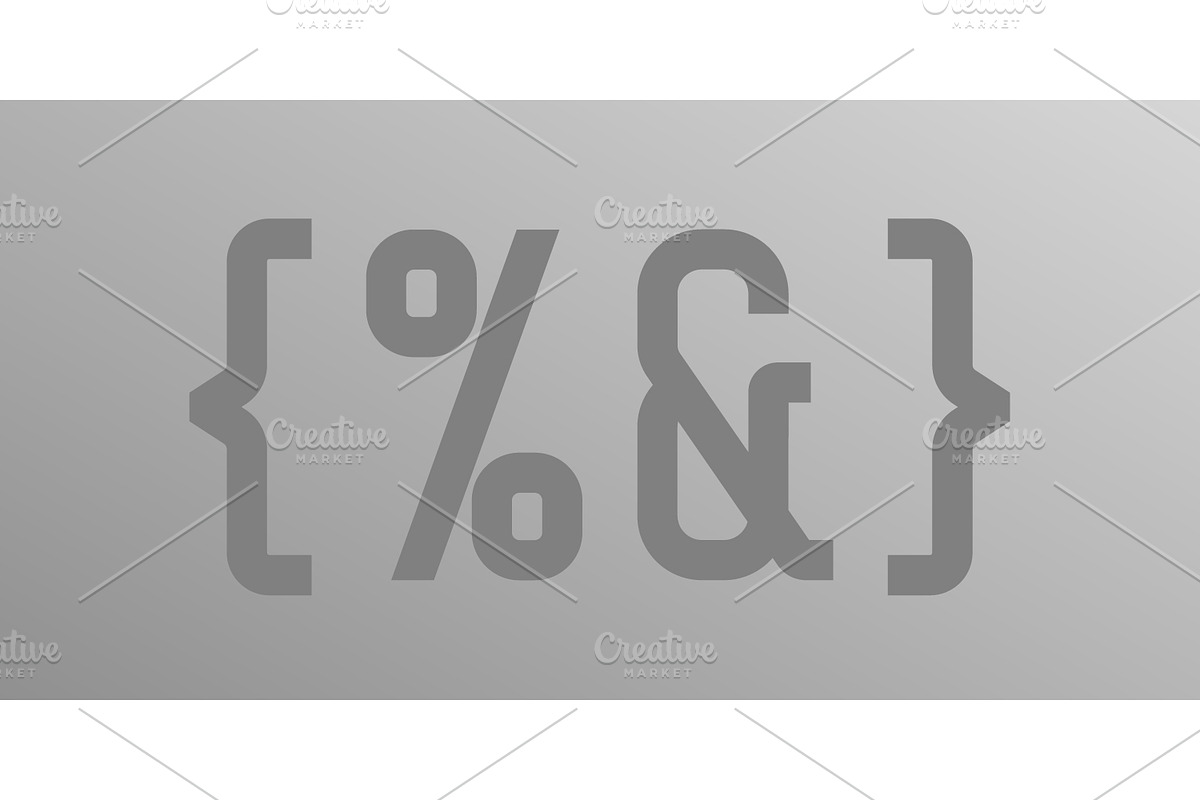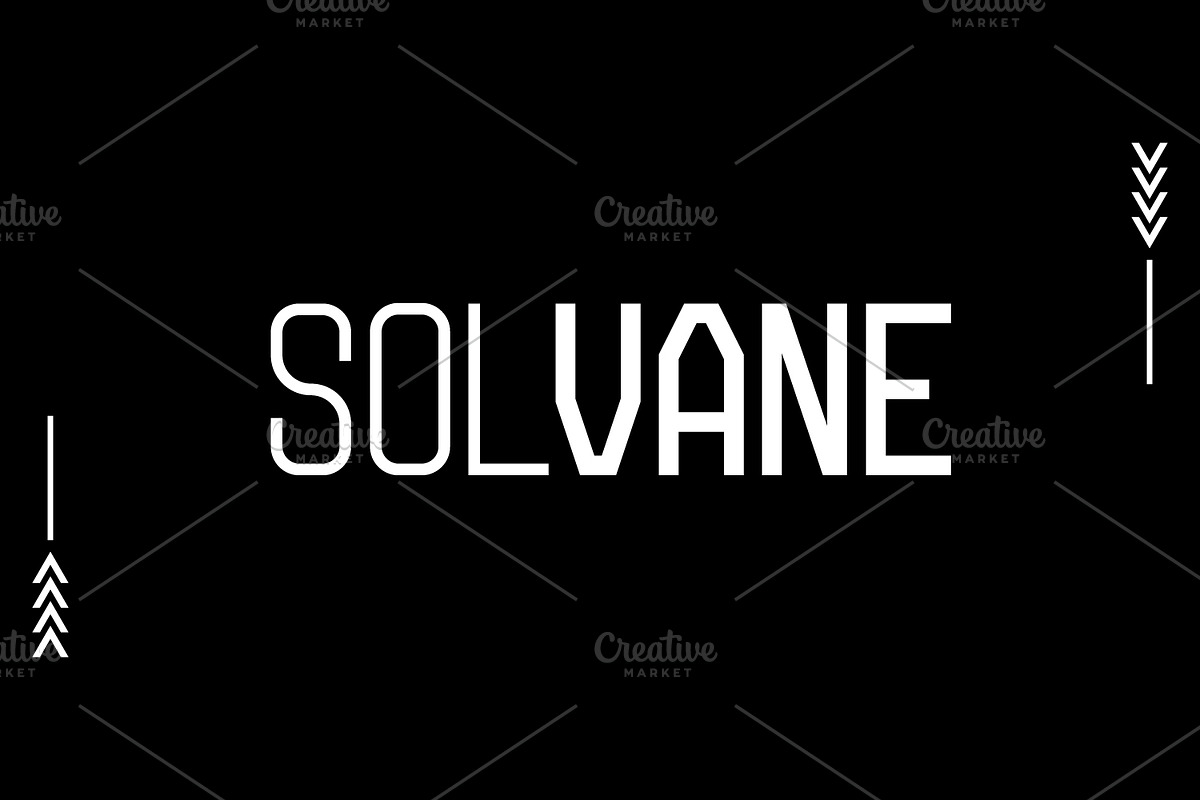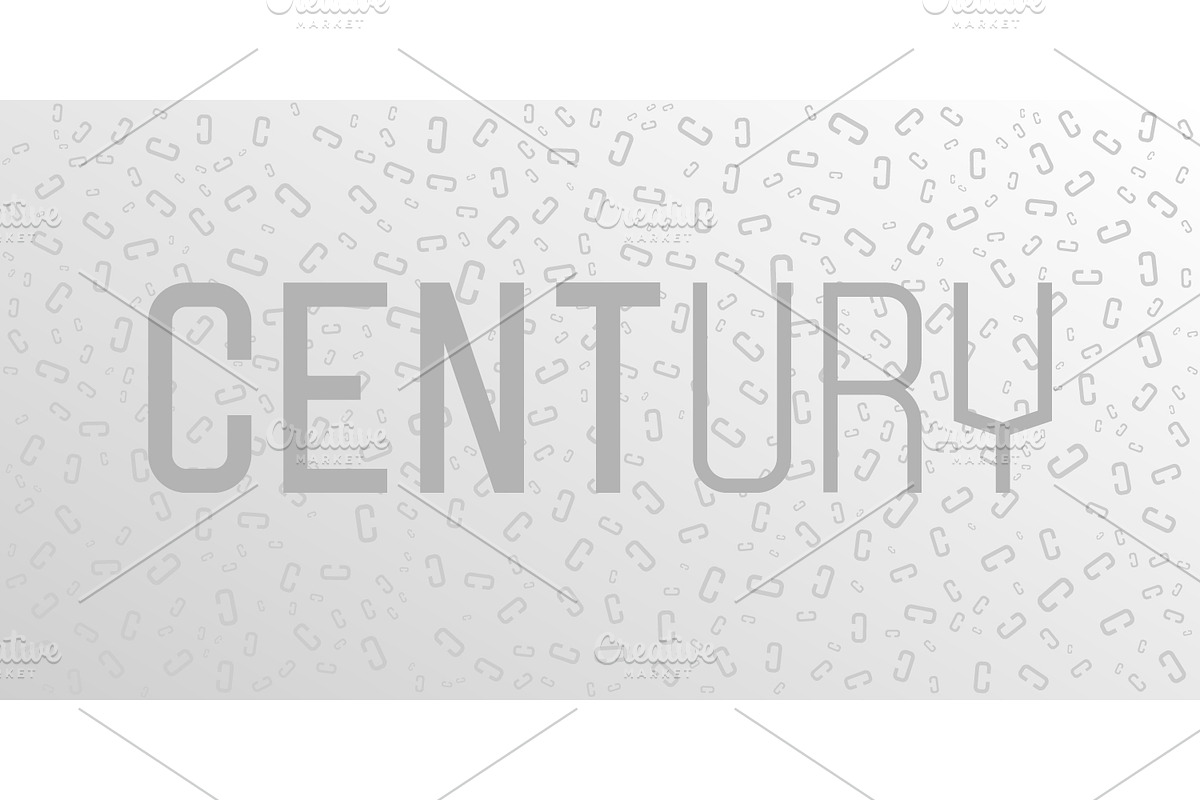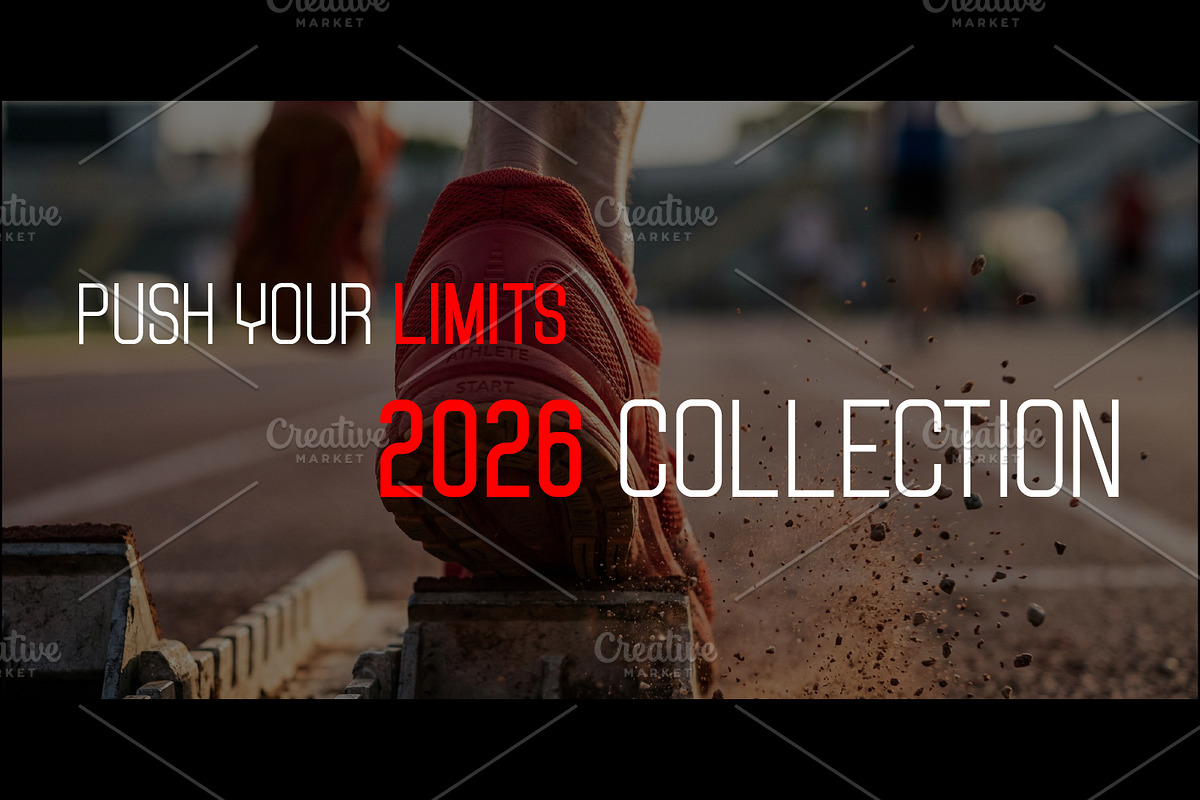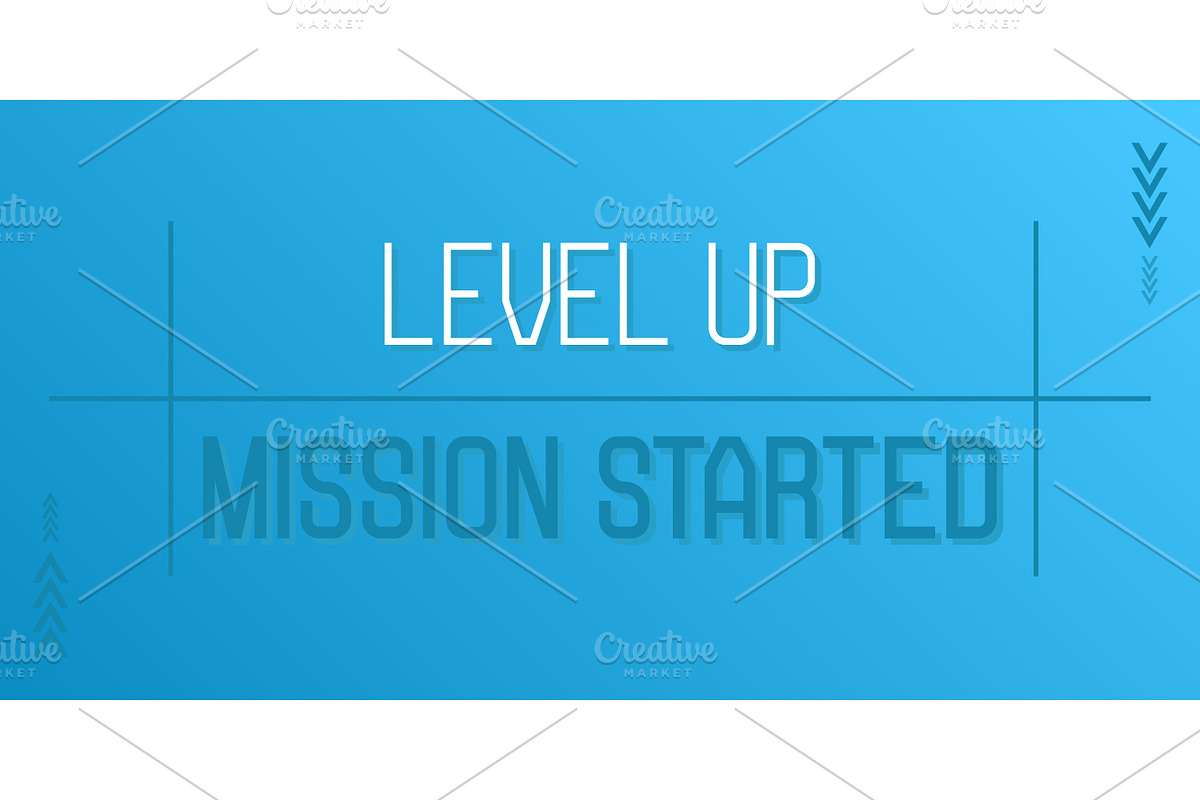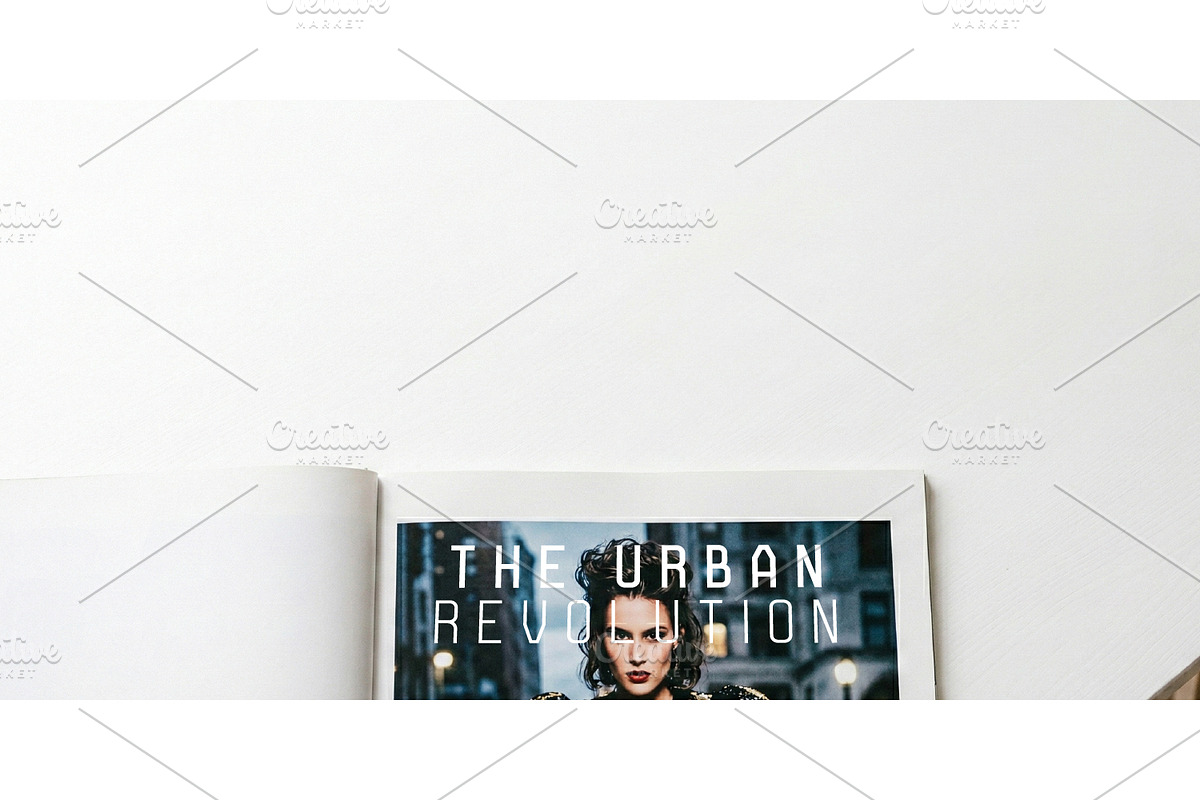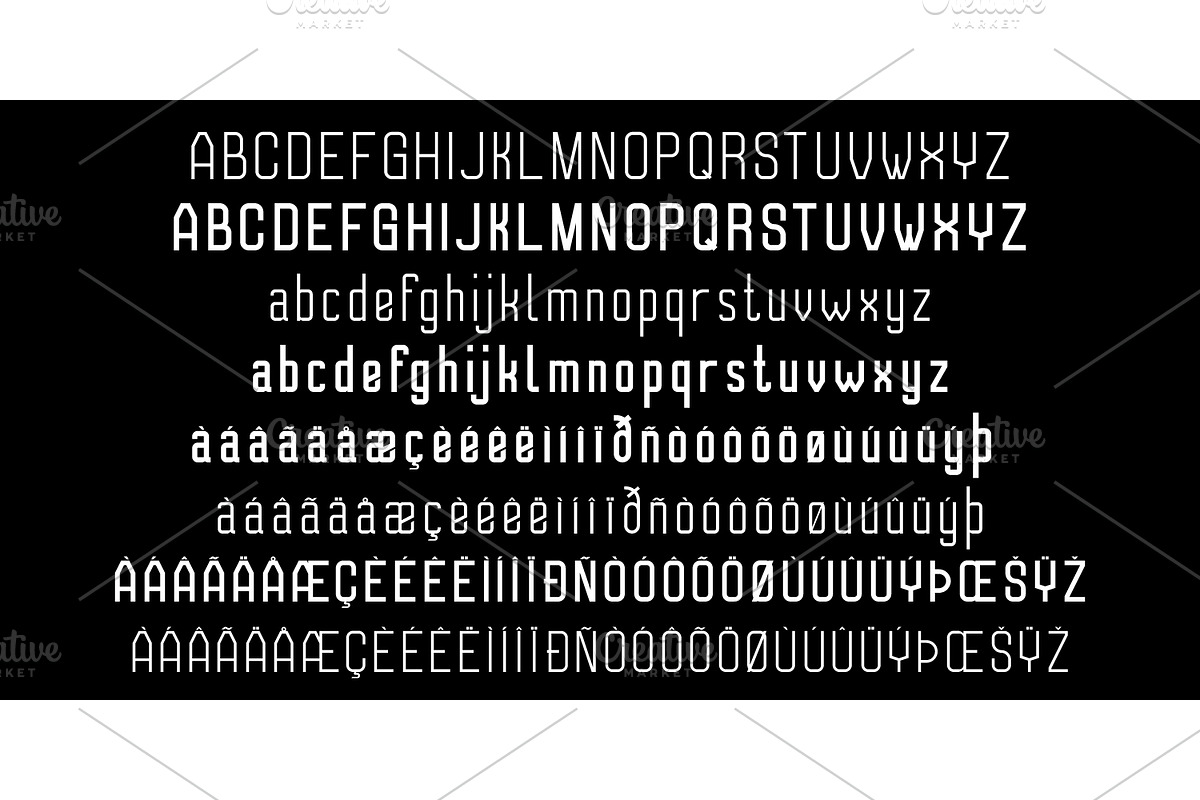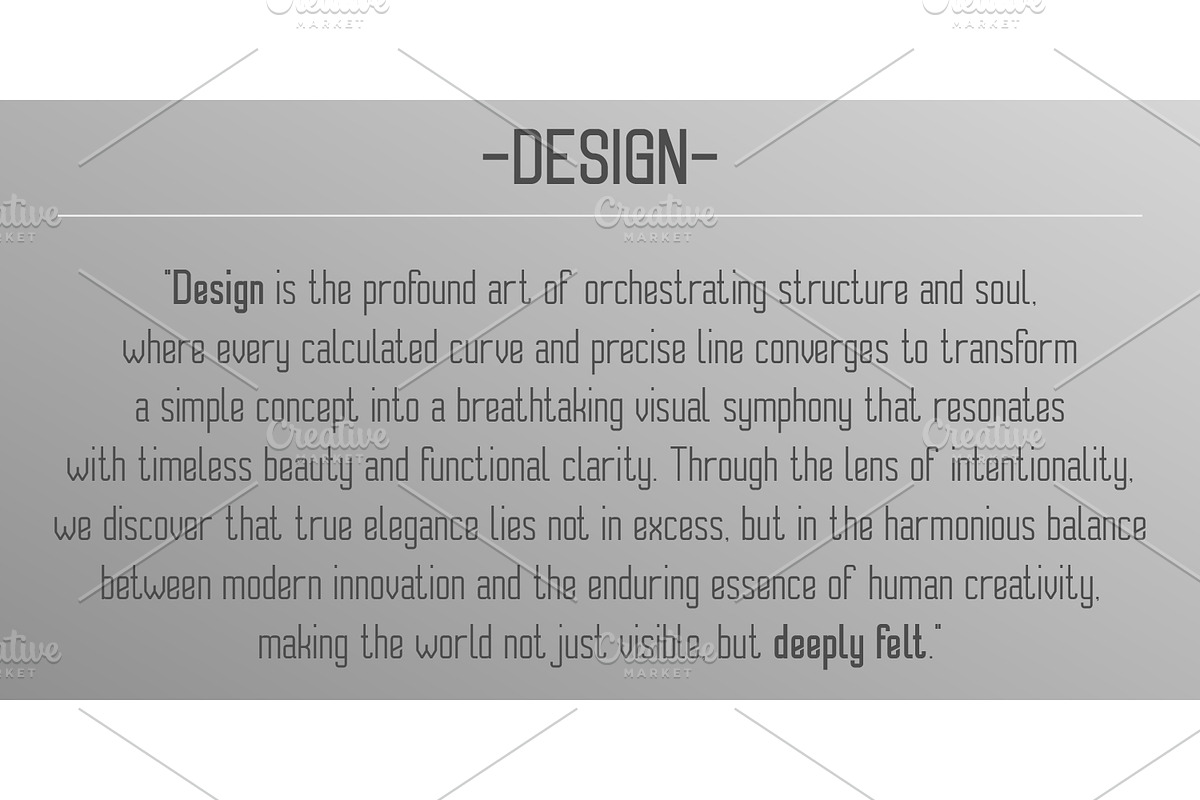
Solvane Sans
Solvane is a sleek, modern, and geometric sans-serif typeface meticulously crafted for a futuristic aesthetic. Characterized by its condensed structure and softened rounded corners, Solvane strikes a perfect balance between technical precision and friendly approachability. Its flat terminals provide a sharp, clean finish, ensuring maximum clarity even in tight layouts.
Available in two essential weights—Regular and Bold—Solvane is designed to command attention. The Regular weight offers a sophisticated look for modern interfaces and editorial content, while the Bold weight delivers high-impact power for headlines and branding. It comes equipped with extensive multilingual support for European 1 (Western European) languages, making it a reliable choice for global communication.